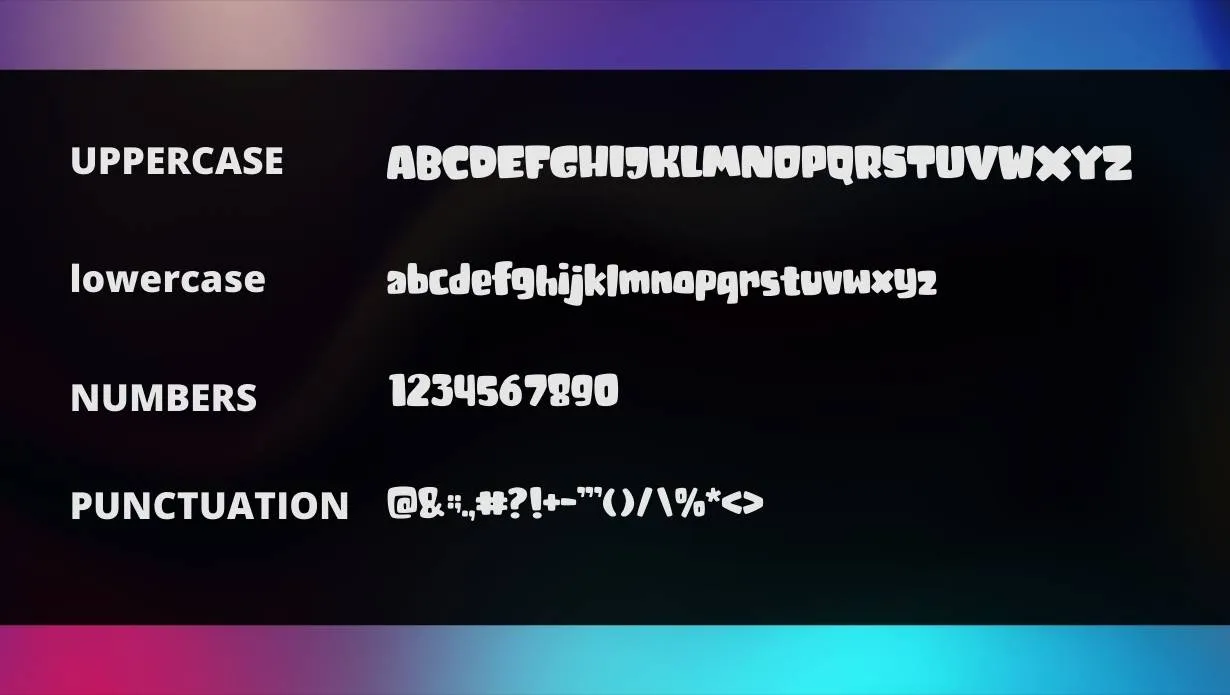
Tricky Jimmy Font is a fancy typeface that was created by Jimmy Ruan in 2006. The font is based on the handwriting of Jimmy himself, which is why it is called “Tricky Jimmy Font”. You can utilize this typeface in Canva, Adobe Photoshop, Adobe Lightroom, and Illustrator.
- Tricky Jimmy Regular
View of Tricky Jimmy Font
Tricky Jimmy Font Info
| Name | Tricky Jimmy Font |
| Designer | Jimmy Ruan |